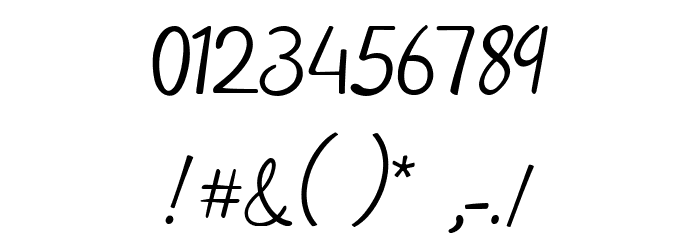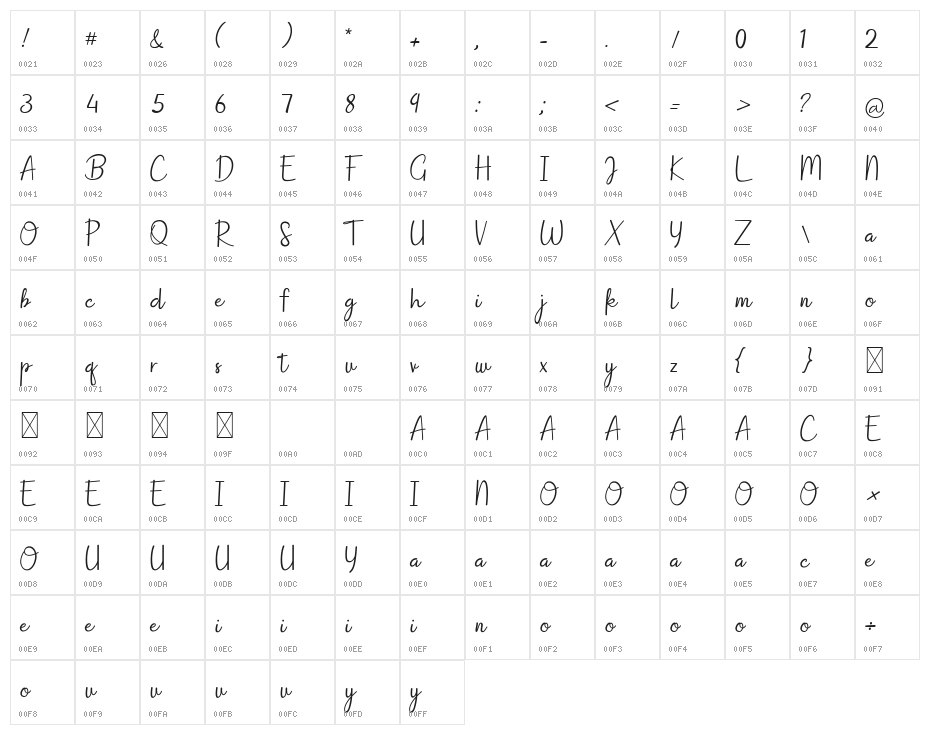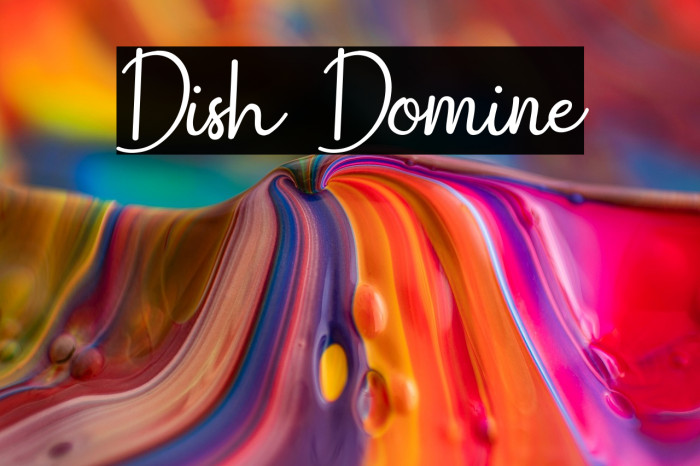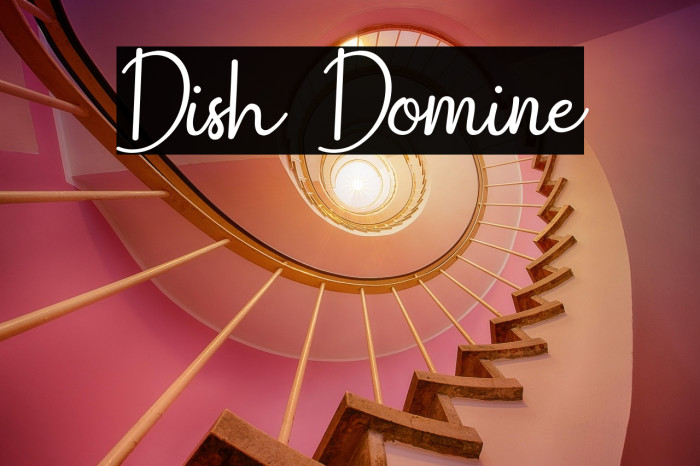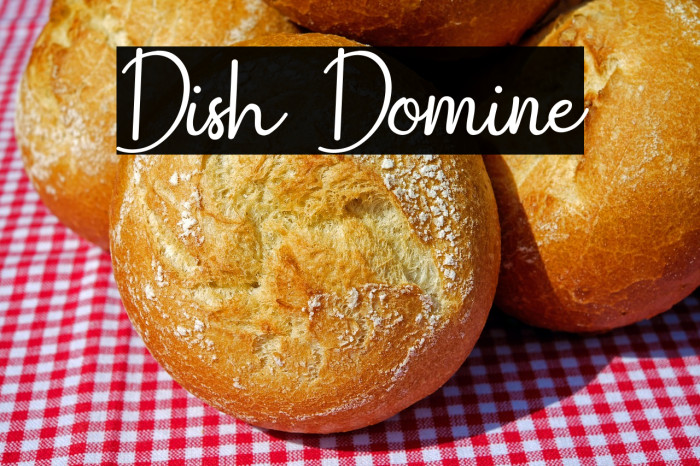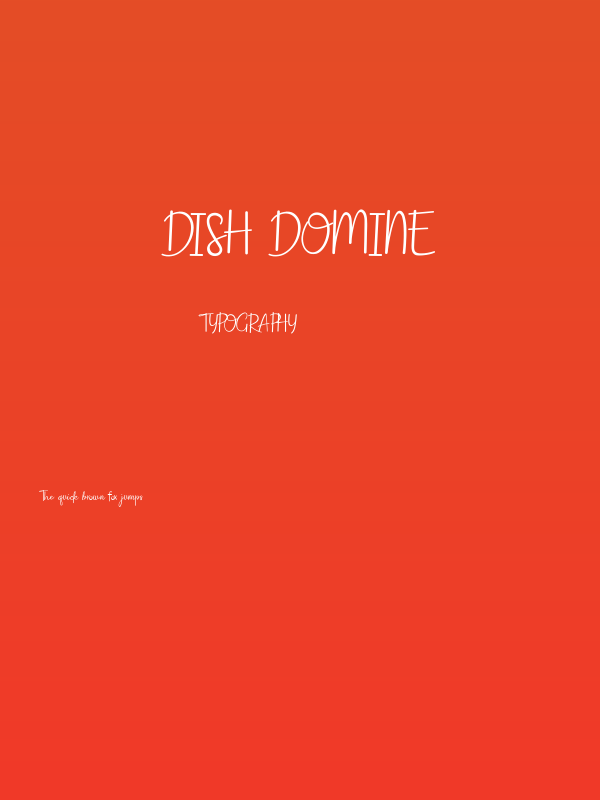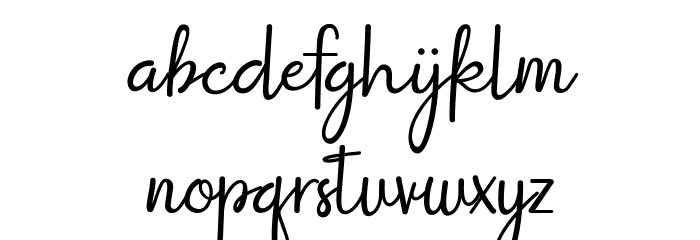
Dish Domine Font
Dish Domine Description
This font features a playful and casual handwritten style, characterized by its smooth curves and slightly irregular strokes. The uppercase letters are tall and narrow, with a whimsical flair that adds a touch of personality. The lowercase letters maintain a consistent flow, enhancing the font's approachable and friendly appearance. Numbers are clear and legible, while special characters are designed to complement the overall style. This font's unique charm makes it suitable for projects that require a personal touch.
| Proposed Projects | Ideal for greeting cards, invitations, personal branding, and social media graphics. |